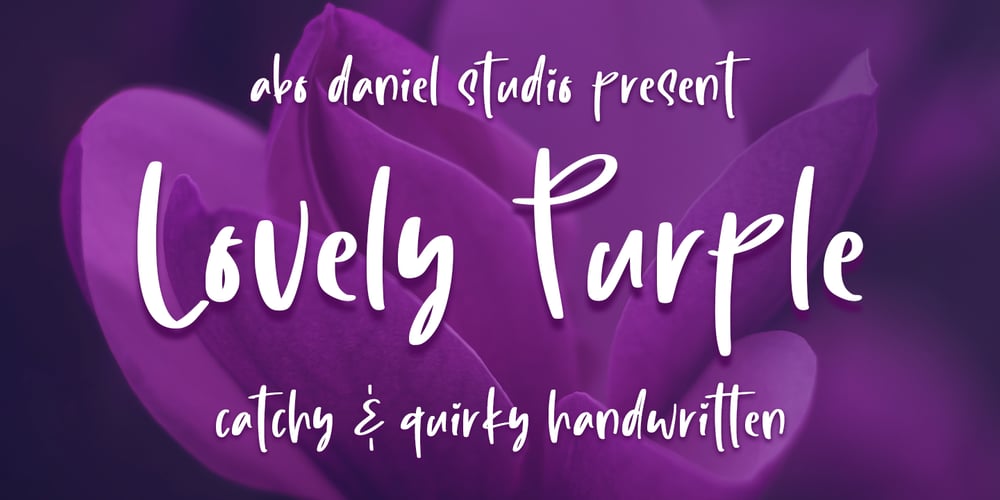
Lovely Purple Font Family was designed by Abo Daniel and published by Abo Daniel. Lovely Purple contains 1 styles and family package options. introducingLOVELY PURPLE- catchy and quirky handwritten -LOVELY PURPLE is natural handwritten font.It is great for quotes, card, banner, book, cutting, silhouette, social media content and anything of craft project.Lowercase and uppercase are matching each other, so you can combine them as you want. I created some ligatures to make it look so natural.Features:- Uppercase- Lowercase- Number & punctuations- Multilingual- PUA encodedI hope you love it…regards,Abo Daniel Studio